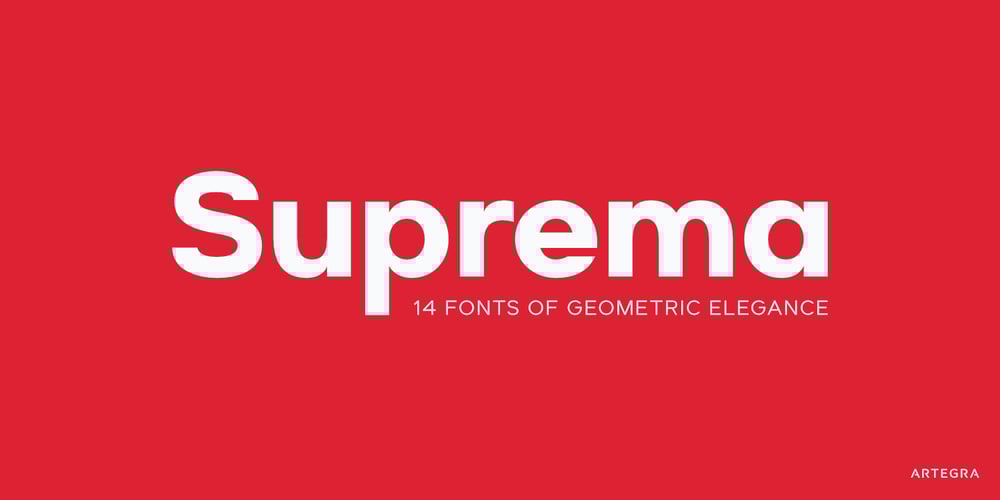
Suprema Font Family was designed by Ceyhun Birinci and published by Artegra. Suprema contains 14 styles and family package options. Suprema is a modern sans serif family that will bring supreme geometric perfection to any piece of typography. It has 7 weights with matching true italics. When it comes to Opentype it has lots of features such as tabular lining, proportional oldstyle, tabular oldstyle, ligatures, superscript, subscript, fractions and language localisations for languages such as Polish, Dutch, Romanian, Moldovian and Catalan.